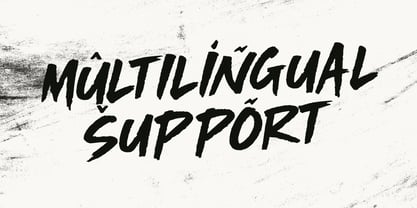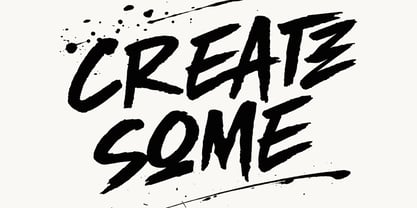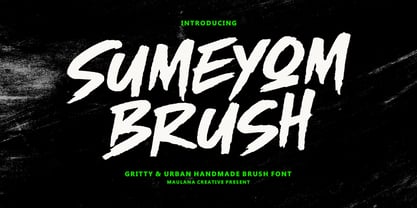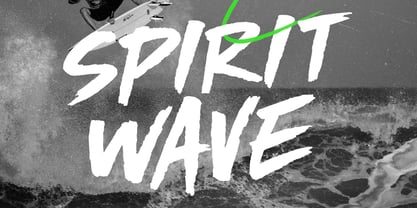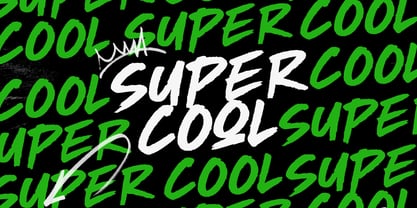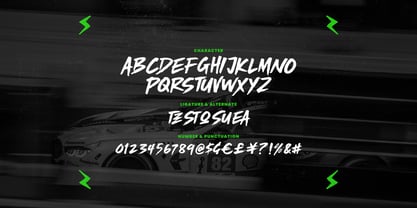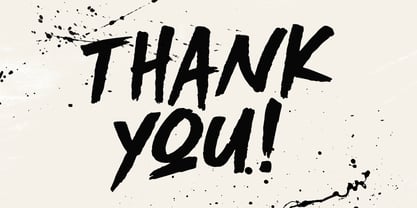
MC Sumeyom
by Maulana Creative
The MC Sumeyom Font Family was designed by Gilang Maulana and published by Maulana Creative. MC Sumeyom contains 1 styles. More about this family
Sumeyom is a bold, aggressive, and handmade brush font designed to bring an authentic street style aesthetic to your creative projects. Featuring heavy dry brush textures and fast, sweeping strokes, this font is perfect for high impact branding, sports graphics, urban, and edgy editorial layouts. With its built-in ligatures and multilingual support, Sumeyom provides a natural, hand painted look that demands attention and communicates raw energy.
Designers: Gilang Maulana
Foundry: Maulana Creative